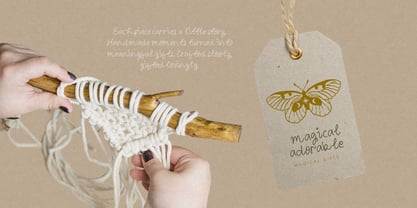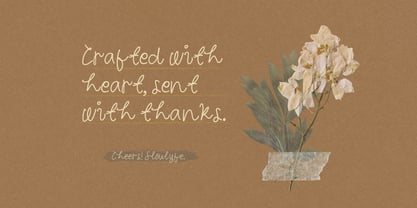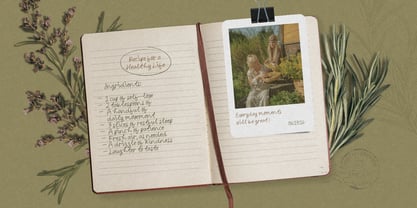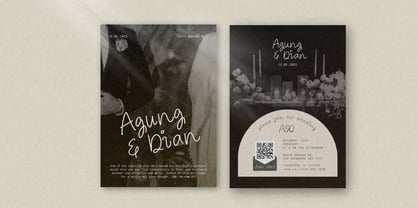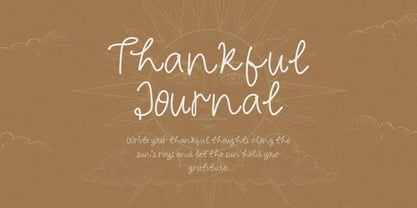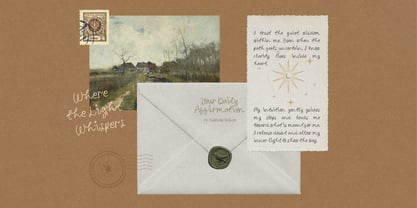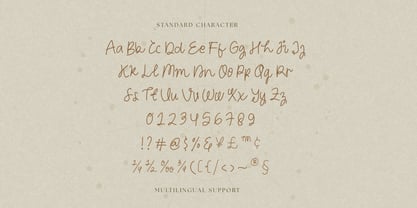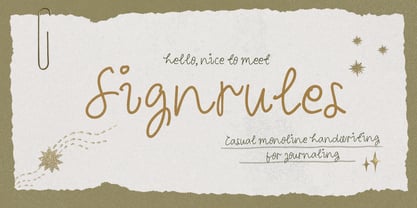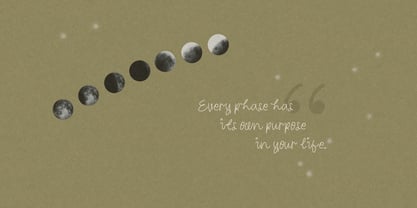
Signrules
Die Schriftfamilie Signrules wurde von Amelia Dian Isnaini entworfen und von Sloulyfe Studio veröffentlicht. Signrules enthält 1 Stile. Mehr über diese Familie
Signrules is a casual monoline handwriting font with smooth strokes, soft curves, and a relaxed handwritten feel. The letterforms are light, natural, and easy to read, giving a warm and friendly impression that feels effortless and authentic. Its vibe is calm, cozy, and slightly playful, making it a great choice for journaling pages, planners, quotes, greeting cards, packaging text, social media posts, and creative branding that needs a simple and charming handwritten touch. Features :Uppercase & lowercase, Numbers and punctuation, Sketchy doodle bonus, Alternates or Ligatures, Multilingual support & PUA encoded Stay catchy everyone!